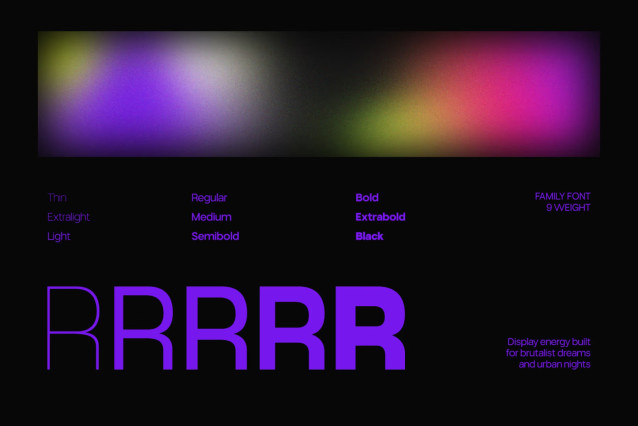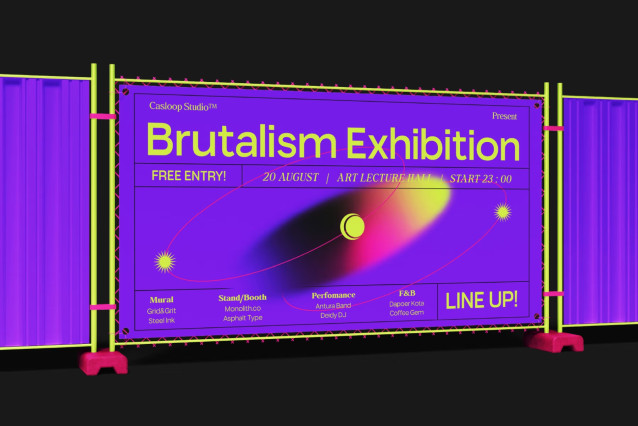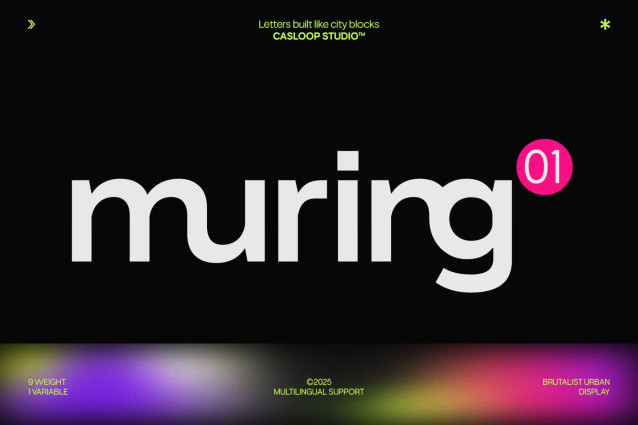
Muring 01 Font Family
Muring.01 is a bold brutalist display sans serif designed for brands that want to stand strong, modern, and unapologetic. Inspired by urban brutalism and industrial architecture, this font brings raw concrete aesthetics into a versatile type system for today’s design needs.
Its strongest detail is found in the character “R” — sharp, confident, and commanding. Along with stylistic alternates for letters like R, A, and T, Muring.01 allows expressive flexibility, giving every project a distinctive visual rhythm. Built in 9 weights (Thin to Black) it adapts easily across editorial, digital, and environmental design.
This typeface blends industrial strength with modern rhythm, making it perfect for projects that need a bold presence while staying clean and professional.